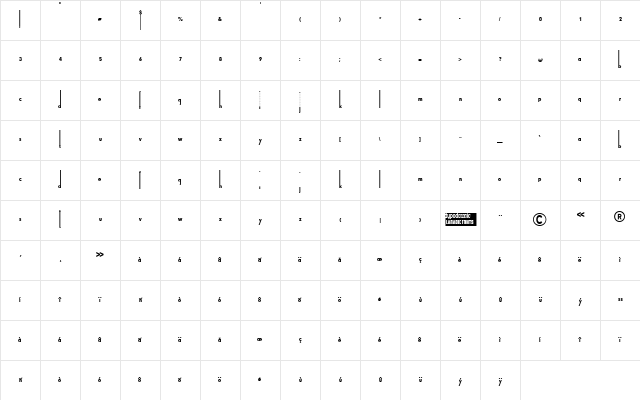
Thiamine Regular
Design Context for Thiamine
Thiamine is a composed and adaptable typeface that performs quietly and consistently across a wide range of design contexts.
Pro Tip: Use Thiamine in both headline and body roles to test its range before committing to a single application.